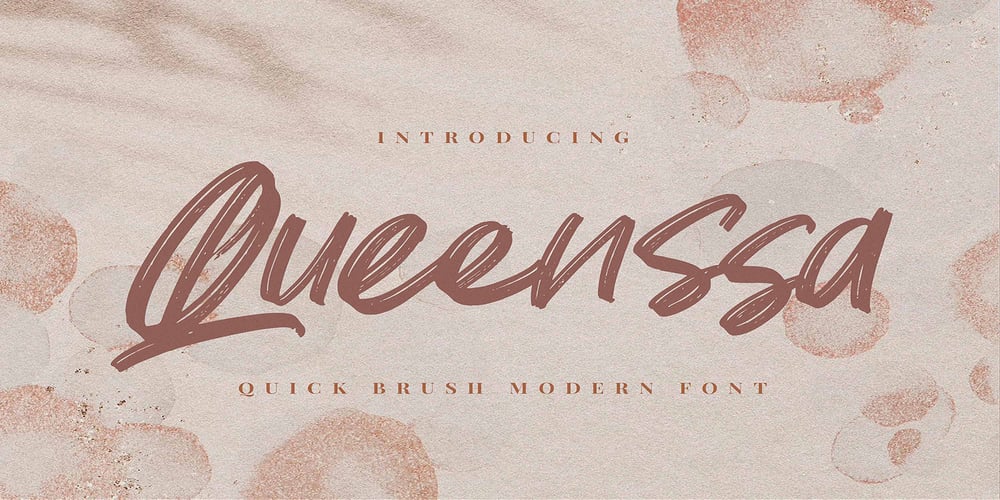
Queenssa Font Family was designed by Abdul Malik Wisnu, Anang Fibriyanto and published by Gassstype. Queenssa contains 1 styles and family package options. Hello Everyone, introduce our new product Font Queenssa it is Quick Brush Modern Font.This is a Textured Natural Style and classy style with a clear style and dramatic movement.This font Queenssa is great for your next creative project such as logos, printed quotes, invitations, cards, product packaging, headers, Logotype, Letterhead, Poster, Design this font is great for your creative projects such as watermark on photography, and perfect for logos & branding, invitation,advertisements,product designs, stationery, wedding designs,label ,product packaging, special events or anything that need handwritting taste.You can activate 12 Ligatures glyphs OpenType panel.